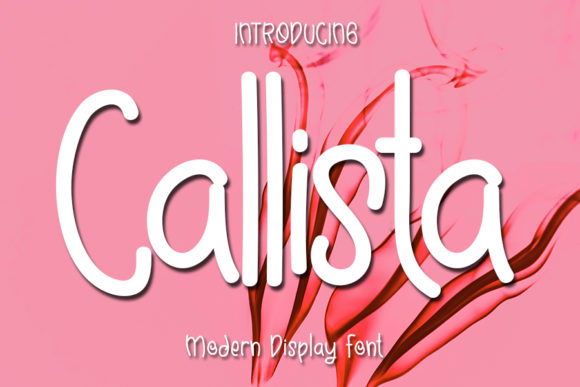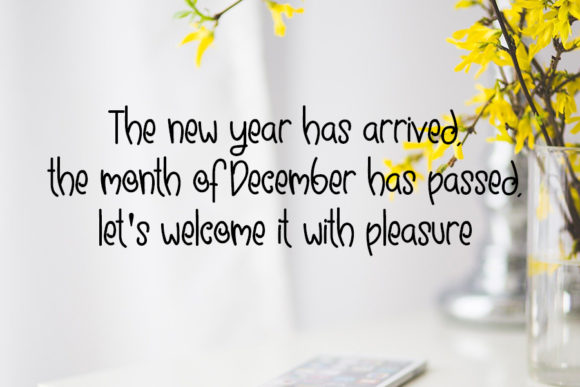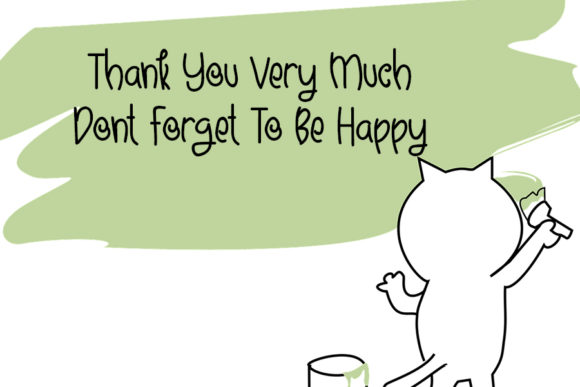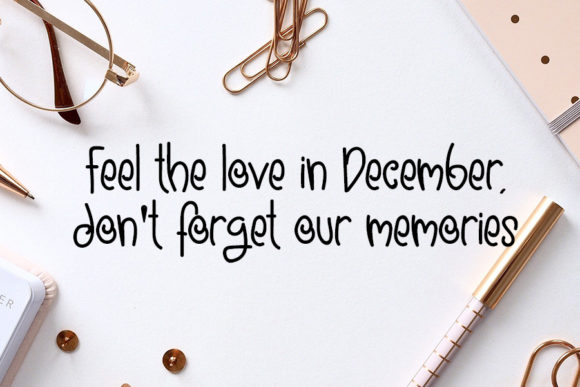
Callista Font
About Callista Font
Callista is a neat and simple handwritten font that has cute cursive accents and swirls. This font will look super sweet in love letters, greetings cards, and crafts that need a personal touch.